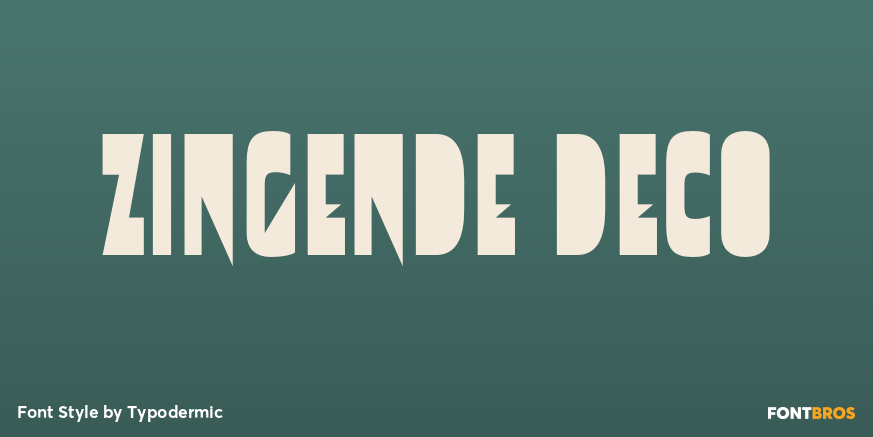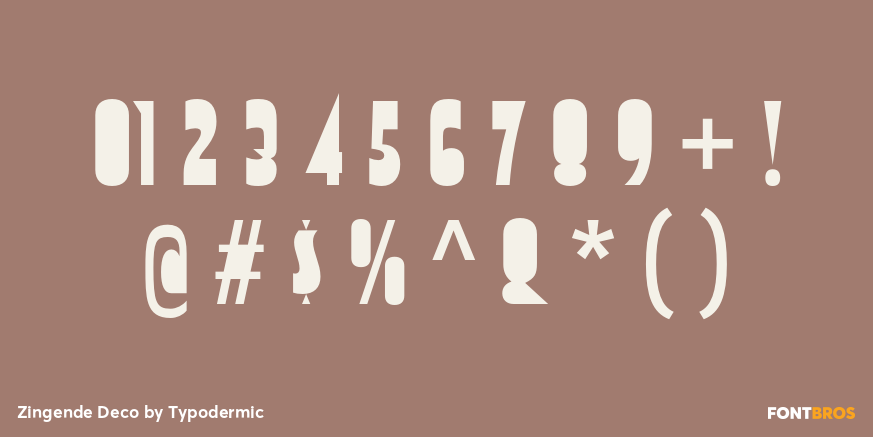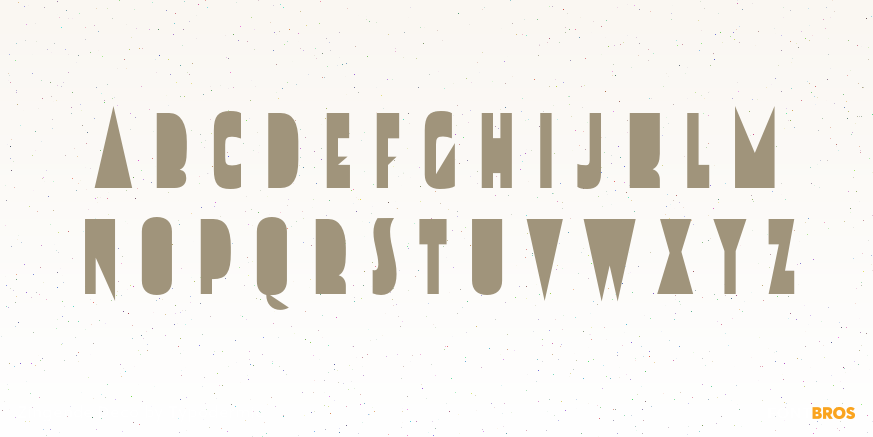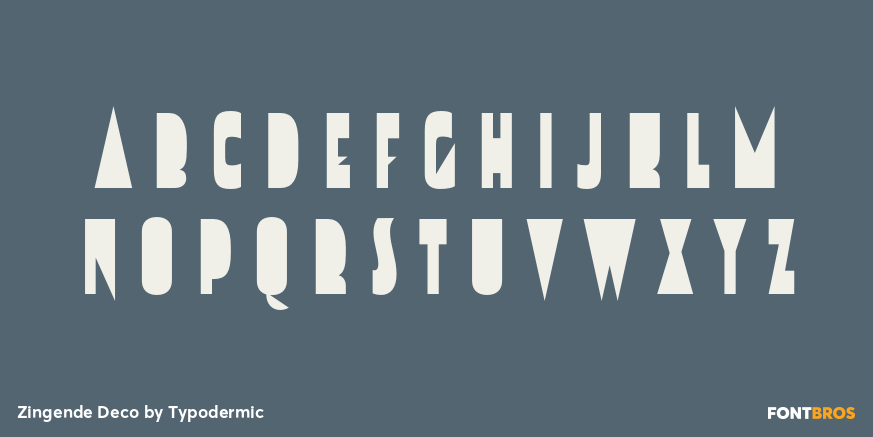
Zingende Deco
Zingende Deco pushes the family’s tall, narrow Art Deco construction into bold geometric silhouettes by filling the counters. Familiar letter structures become compact display shapes with a dramatic architectural presence, making Deco a distinct accent rather than another weight in the standard Zingende range.
Use it for feature-wall titles, luxury hospitality campaigns, venue names, museum exhibitions, jewelry and watch graphics, rail-inspired identities, and large event signage. Keep it to short words at generous sizes so the filled forms remain recognizable. Pair it with the open-counter Zingende styles for descriptions, dates, and supporting information.